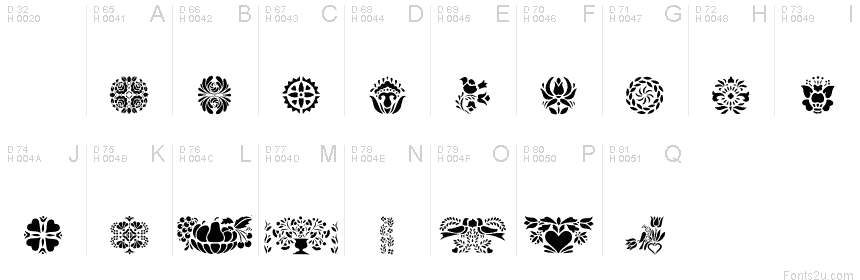
Folk Art 2 by Denise Clendenin is a free nature dingbat font filled with crisp floral silhouettes. Its motifs include mirrored folk ornament, dense rose clusters, leafy wreaths, birds, and vase-shaped bouquets. The shapes are bold and sharply cut.
Borders are its strongest use, with symmetrical motifs suited to invitations and seasonal cards. Individual symbols also suit craft packaging and event posters. The font is most convincing when floral ornament becomes the main illustration.
Folk Art 2